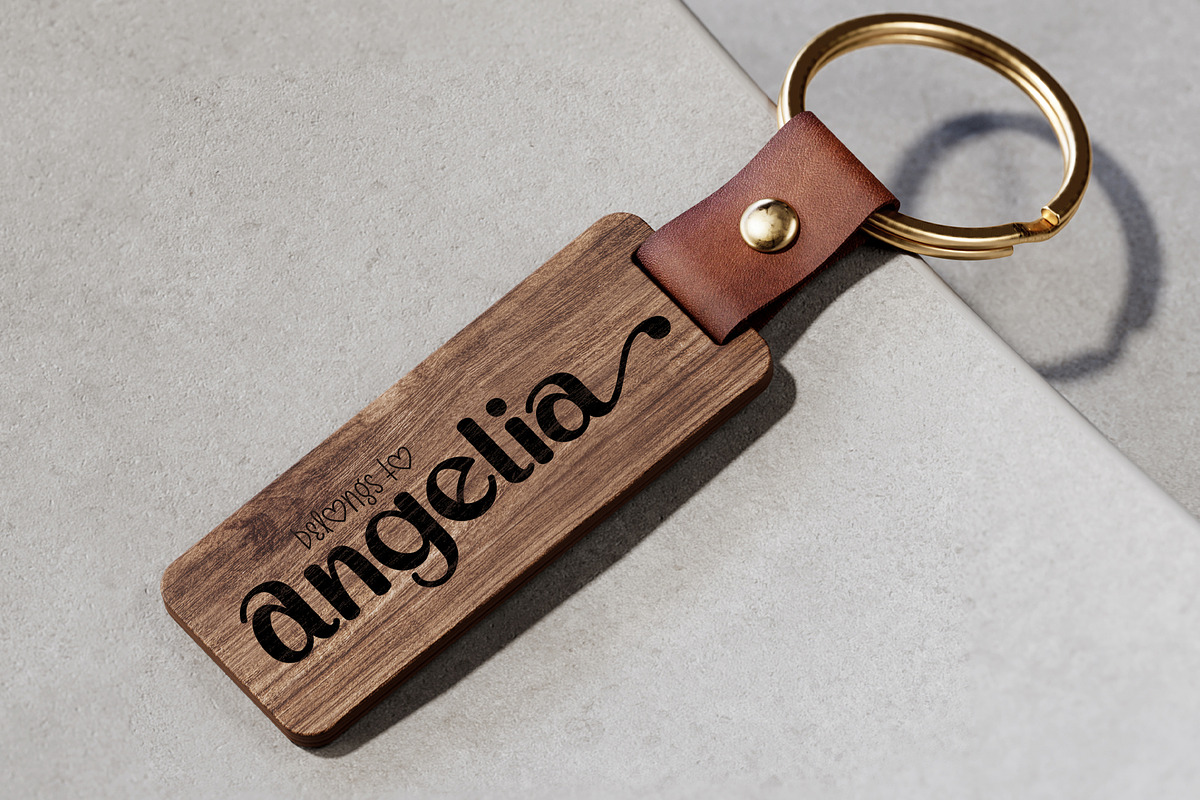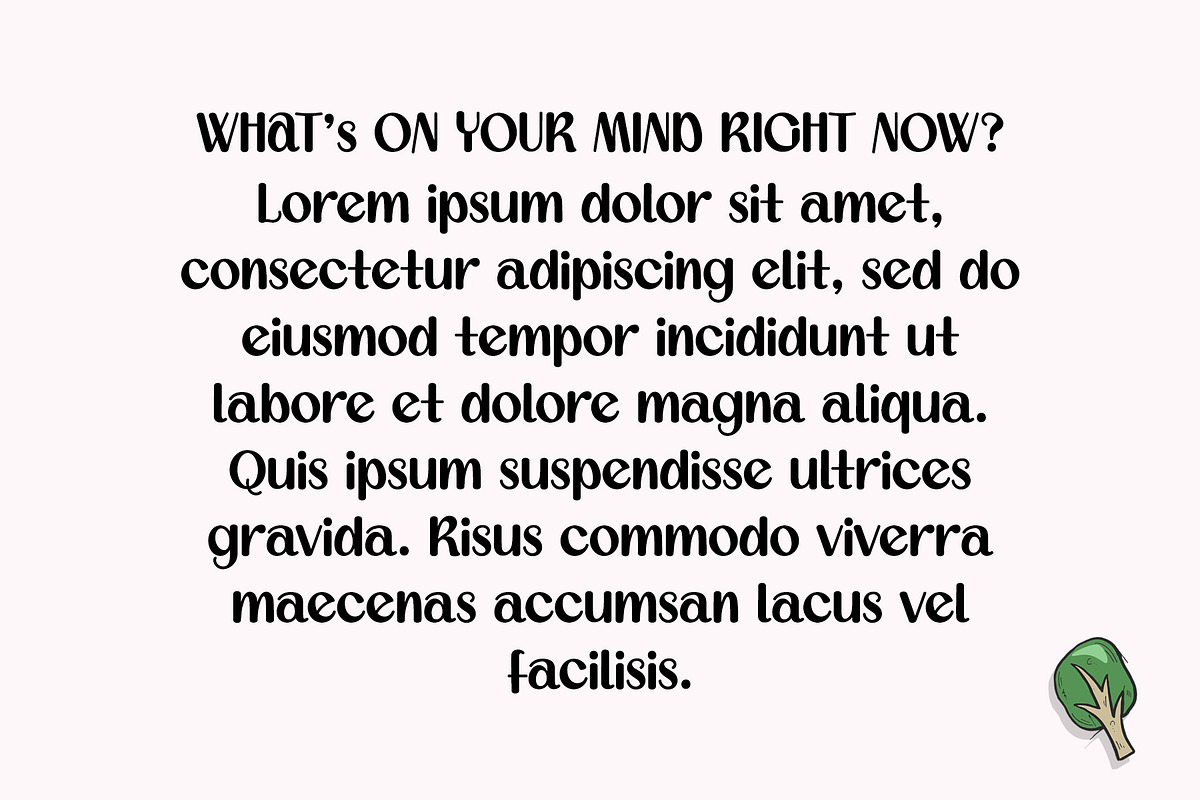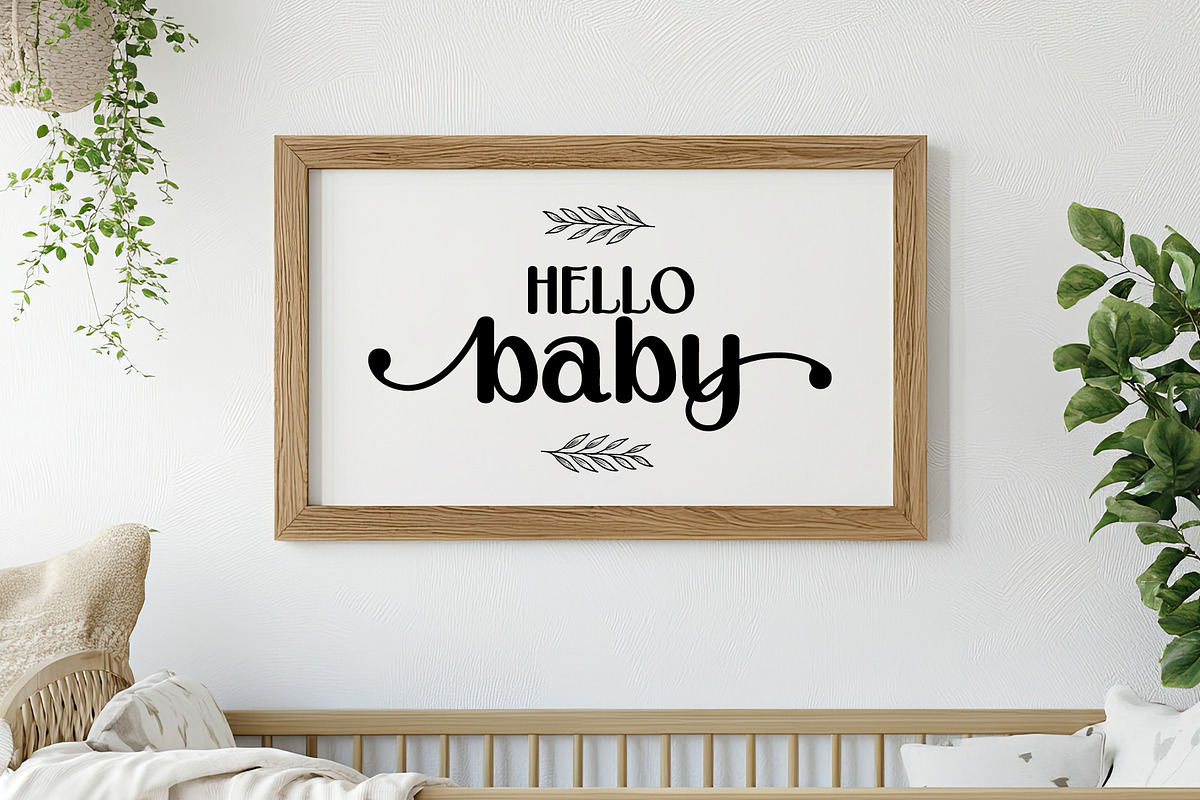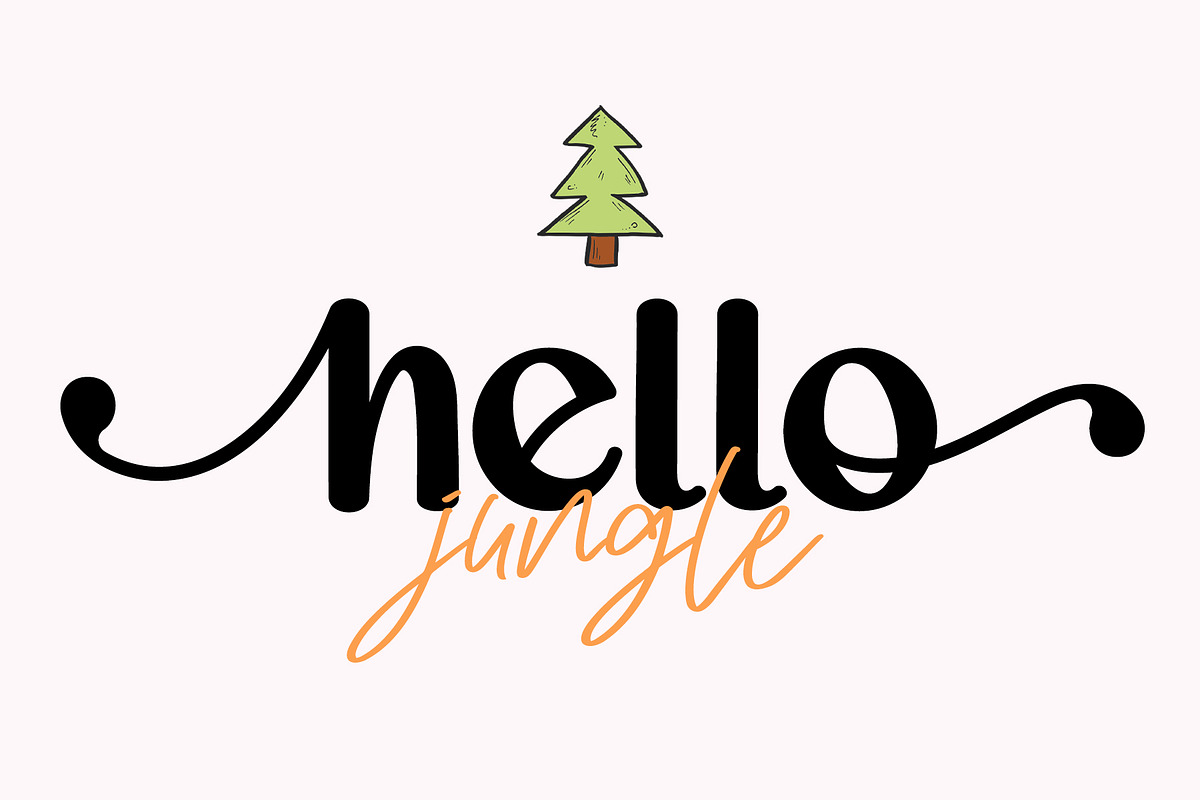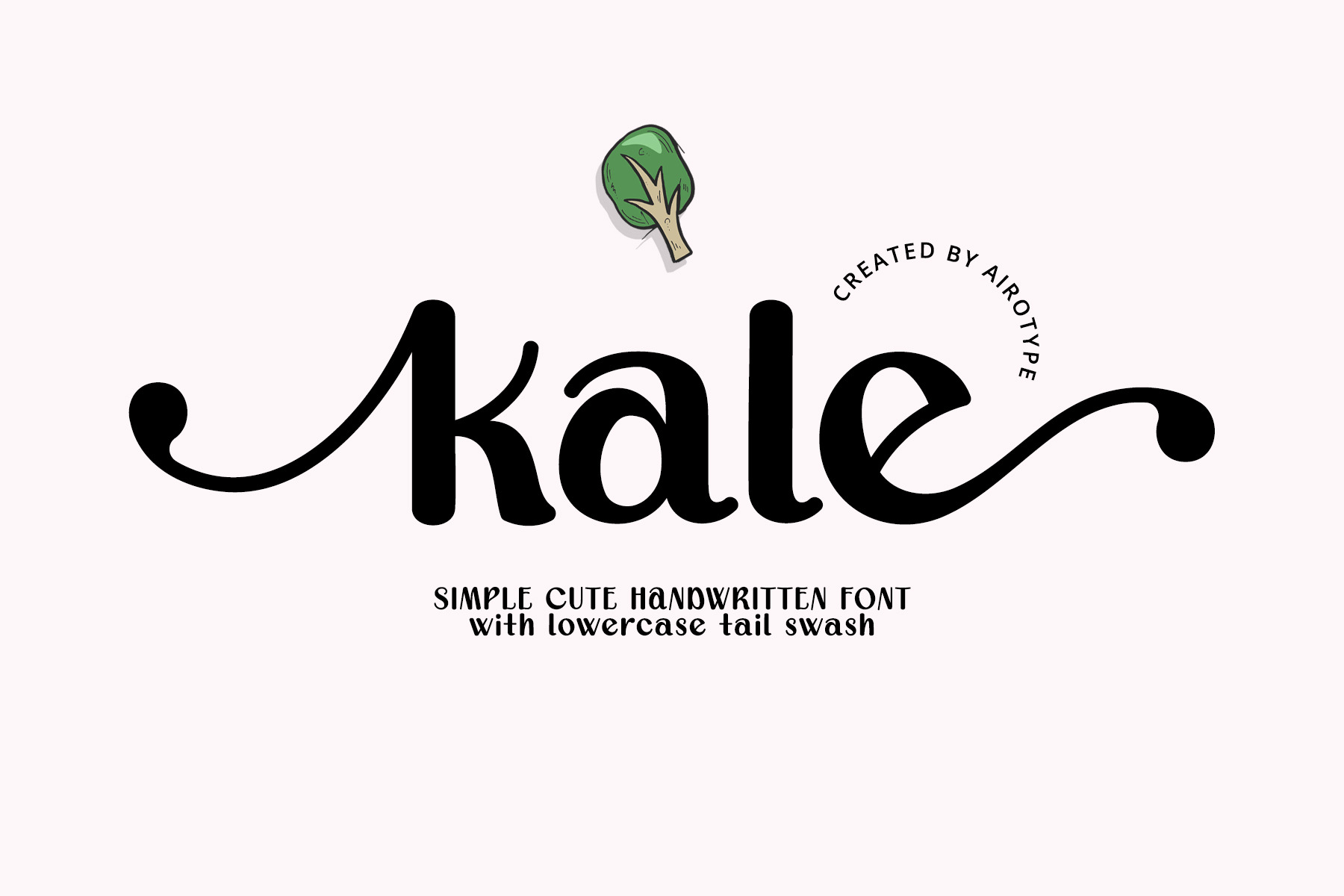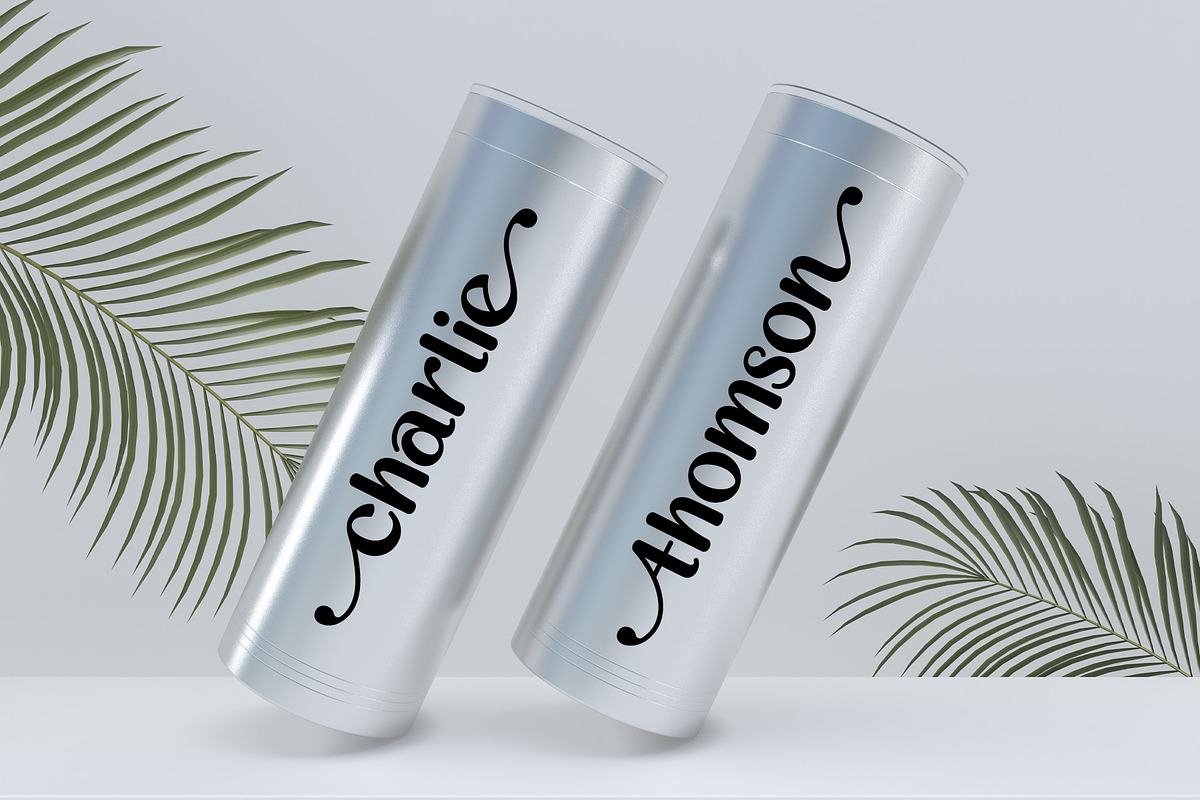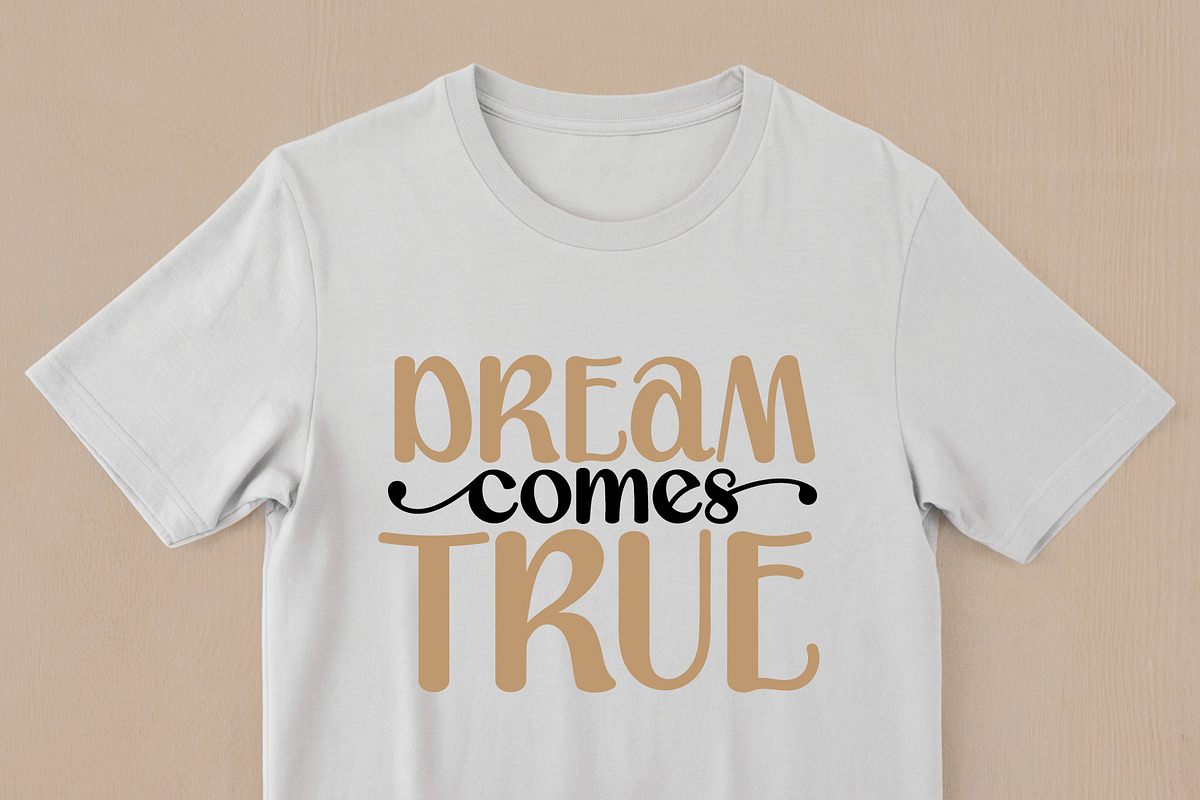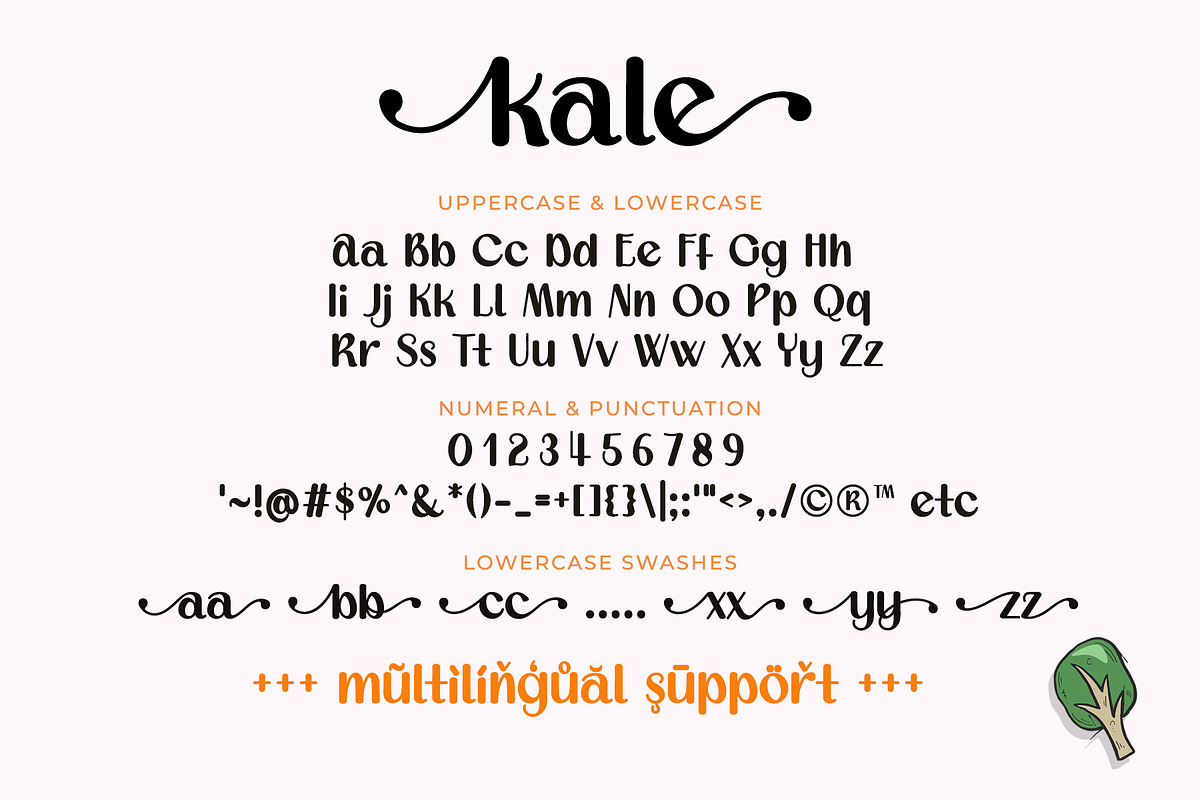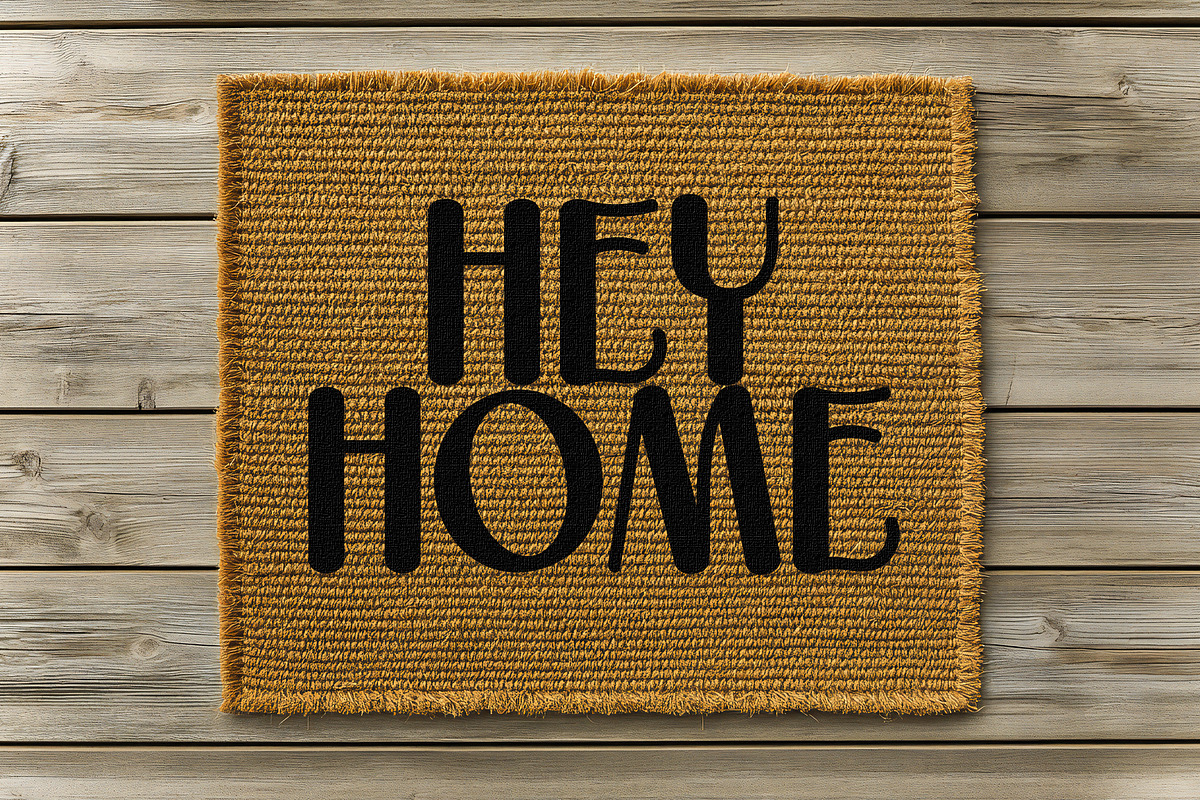
Kale - Sweet Cute Handwritten Font
Kale is sweet and cute handwritten font. This font radiates festive, joyful, and fancy vibes into the design.
Kale font has lowercase tail swash in front and back. Make sure you know how to access extra alternates in the program you are using.
This font is suitable for design that needs cute natural handwritten touch, such as greeting card, wedding invitation, t-shirt design, crafting, sticker, tumbler, sublimation, and many more.
- Uppercase & Lowercase (with lowercase swash)
- Most Multilingual Accent